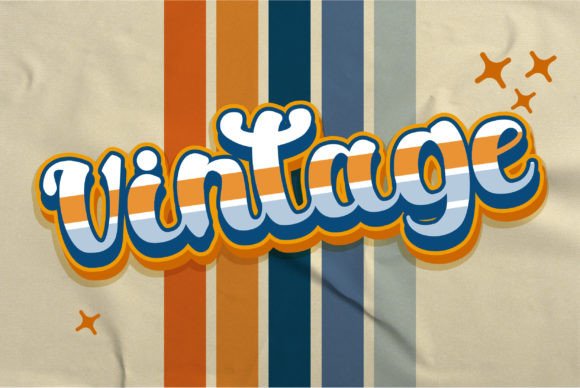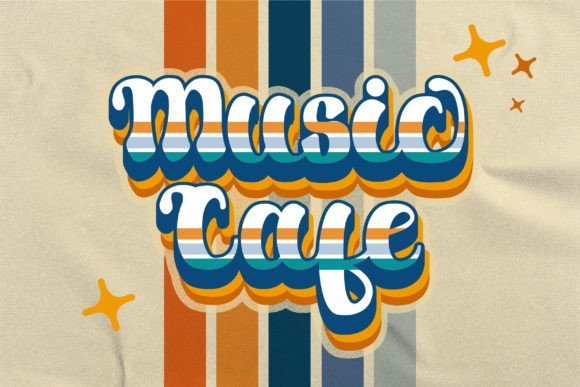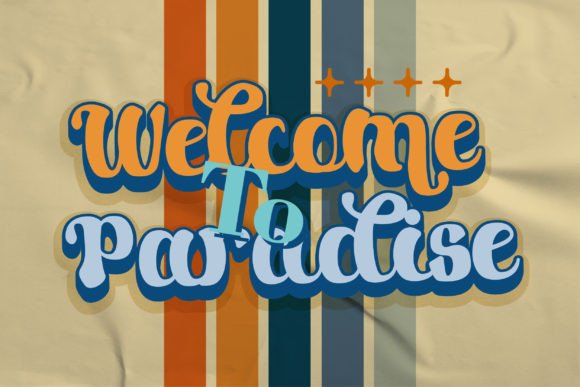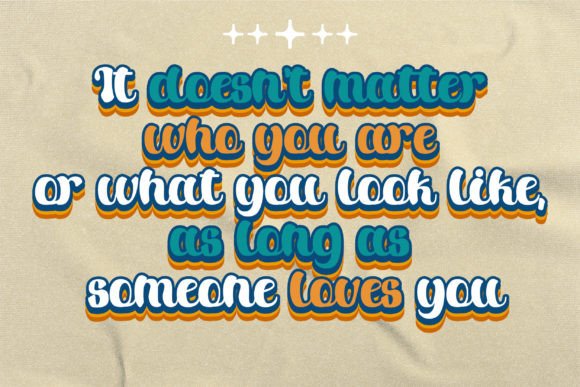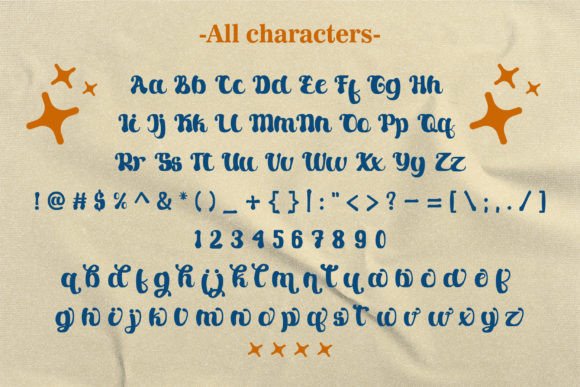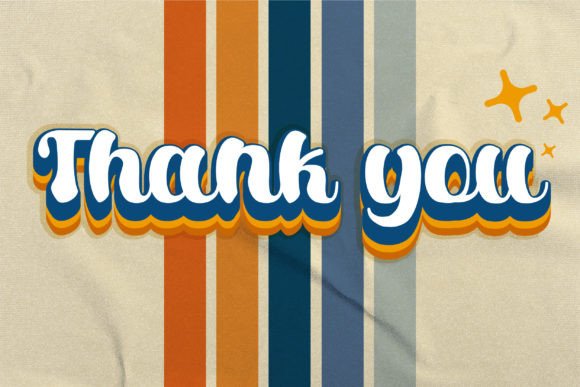
Adding a Touch of Retro Charm to Your Designs
Have you ever stumbled upon an old, worn-out book or a vintage postcard that instantly sparks your creativity? For designers, those fleeting moments of inspiration can be a game-changer. It’s the perfect time to experiment with unique fonts that transport you to a bygone era. That’s exactly what the Bali Vintage Font does – it brings the essence of the past to your designs, adding a touch of nostalgia and character.
Whether you’re creating a logo, designing wedding invitations, or crafting social media posts, the Bali Vintage Font is a versatile tool that can elevate your work. Its bold, vintage style lends itself perfectly to a range of creative projects, making it a valuable asset for designers looking to add some retro flair to their designs.
Bali Vintage Font Key Features
- Unique Characteristics: The Bali Vintage Font features a distressed, vintage aesthetic with subtle texture and wear, perfect for creating a nostalgic or retro look.
- Font Styles: Includes 3 font styles: Regular, Italic, and Bold, providing versatility for various design applications.
Bali Vintage Font Review
As a designer, I’m always on the lookout for unique and captivating fonts to add to my collection. The Bali Vintage Font caught my eye, and I decided to give it a try.
- The font’s distressed and vintage vibe is spot on, making it perfect for adding a retro touch to designs.
- The weight and texture variations offer a nice range of options for creating depth and visual interest.
- The font is highly legible, even at smaller sizes, making it suitable for a variety of applications.
- The font’s design can feel a bit too “trendy” for some tastes, and it may not appeal to those who prefer more timeless designs.
Overall, I think the Bali Vintage Font is a solid choice for designers who want to add a touch of vintage charm to their designs. While it may not be perfect for everyone, its unique style and versatility make it a great addition to any font collection.
Tips for Getting the Most Out of the Bali Vintage Font
Here are some tips to help you get the most out of the Bali Vintage Font:
- Use it sparingly to create a vintage or retro feel.
- Pair it with bold or italic fonts for contrast.
The Bali Vintage Font is perfect for:
- Vintage-themed designs.
- Retro-style advertisements.
- Wedding invitations or stationery